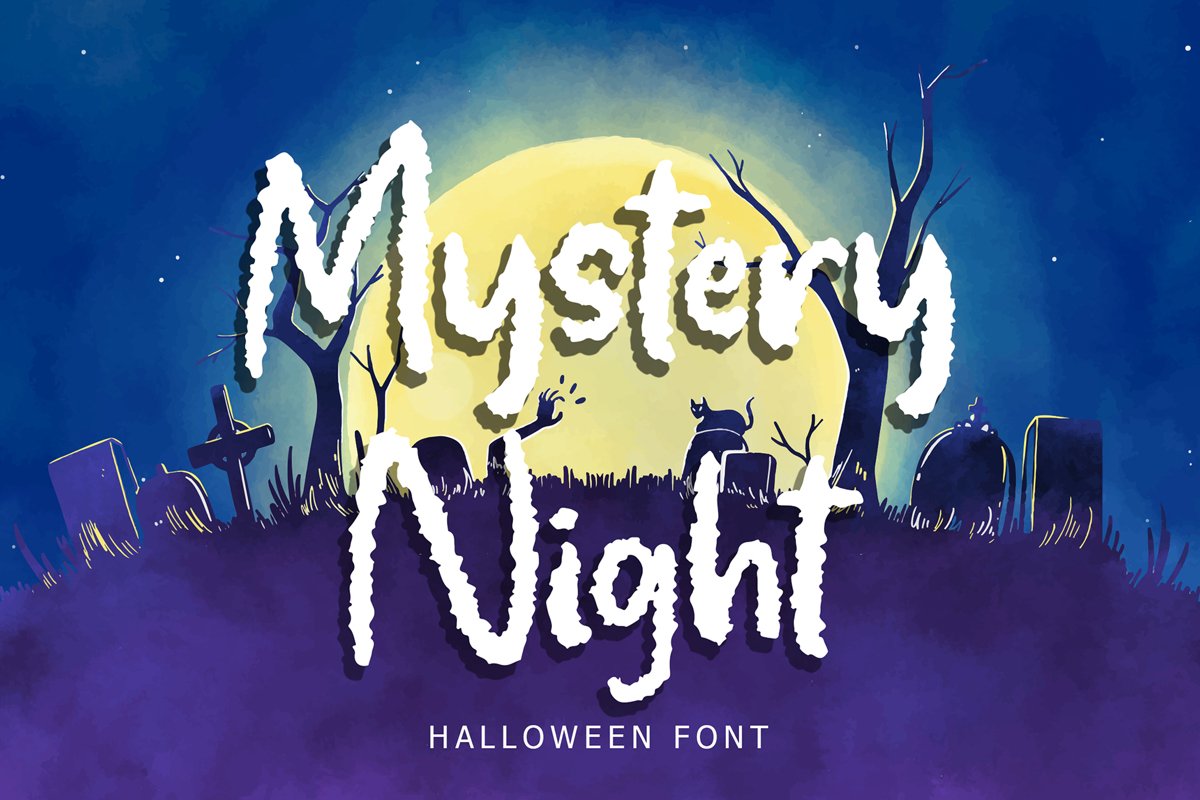
Mystery Night Helloween Font
MysteryNight
Mystery Night Helloween Font is a spooky horror font . This perfect for Invitation Helloween Party , branding projects, logo, book cover design, tshirt designs, social media posts, advertisements, product packaging, product designs, label, watermark, invitation, stationery and any projects
Mystery Night Helloween Font